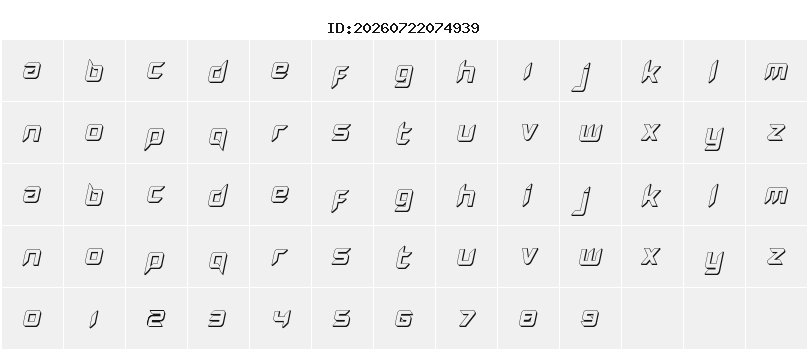
• Font Name: Hollow Point 3D Italic
• Full Font Name: Hollow Point 3D Italic
About Hollow Point 3D Italic.ttf
Hollow Point 3D Italic.ttf is a modern, elegant sans-serif font designed for ultimate readability and visual harmony. Perfect for branding, headlines, web design, and print materials.